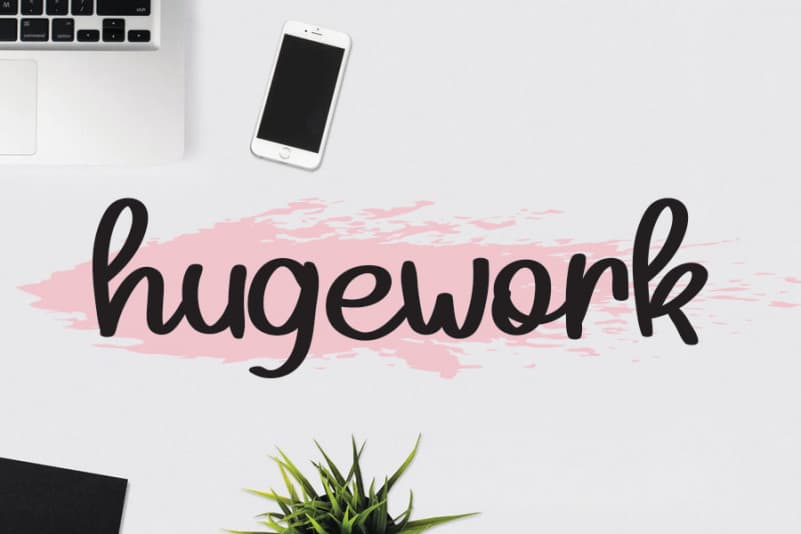
Hugework Handwritten Font
Hugework Handwritten Font is a sweet and friendly handwritten font. Its natural and unique style makes it incredibly fitting to a large pool of designs. The only limit is your imagination!
Hugework Handwritten Font perfect for wall displays, wedding invitations, social media post logos, advertisements, product packaging, product designs, labels, photography, watermarks, invitations, stationery, and any project.